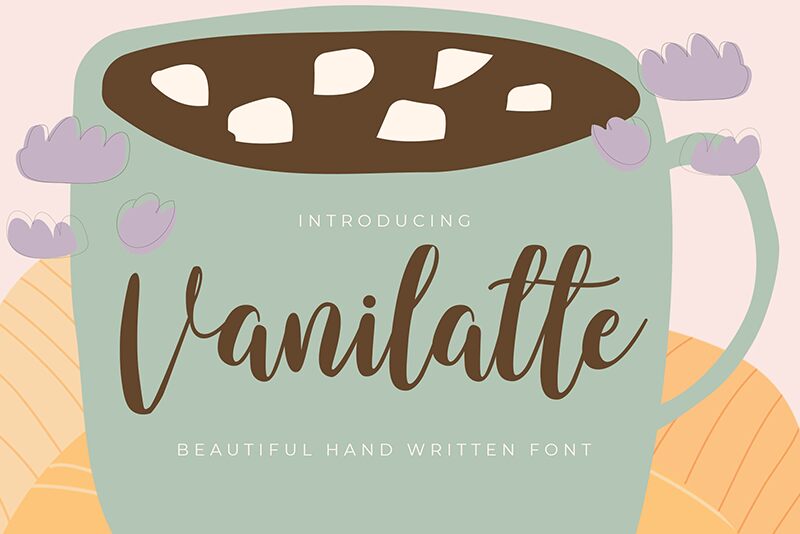
Vanilatte
Vanilatte is a beautiful calligraphy script font designed by Almarkhatype Studio's Abdul Malik and Sucha. Perfect for adding a romantic and elegant touch to your wedding invitations, stationery, logos and more!